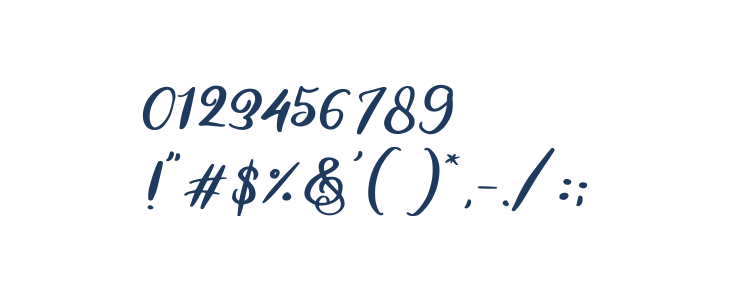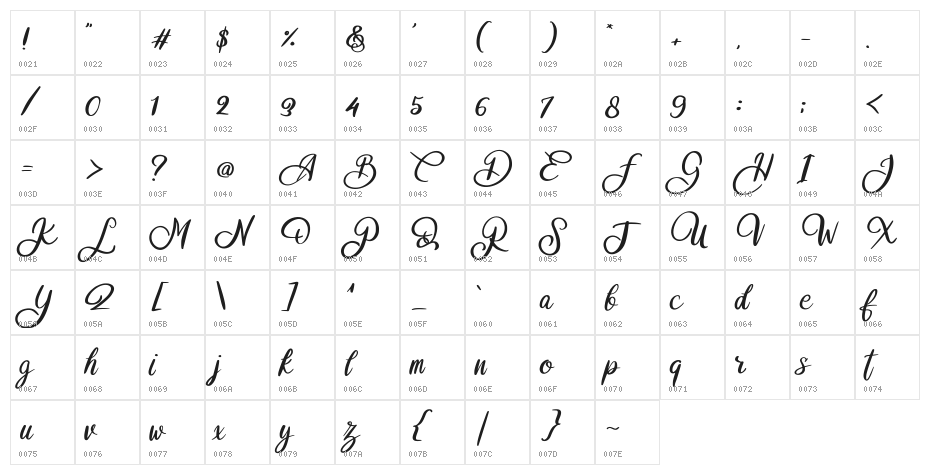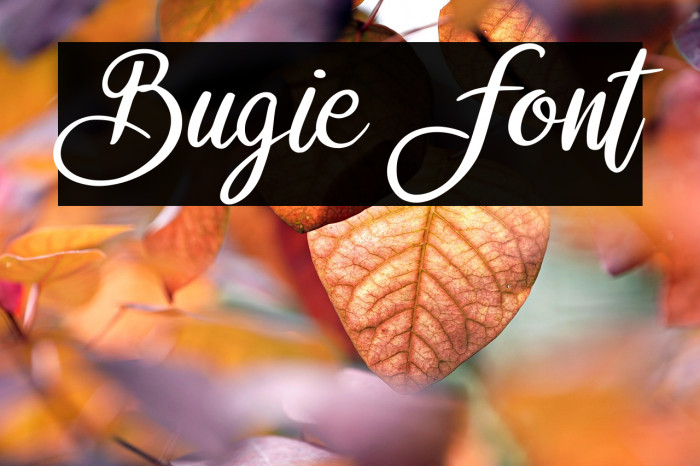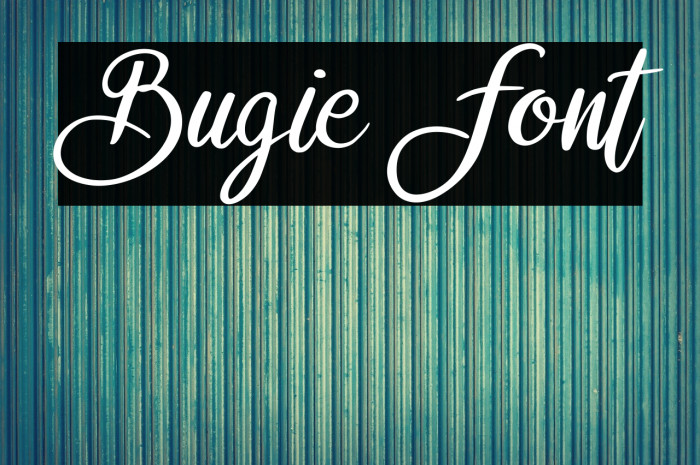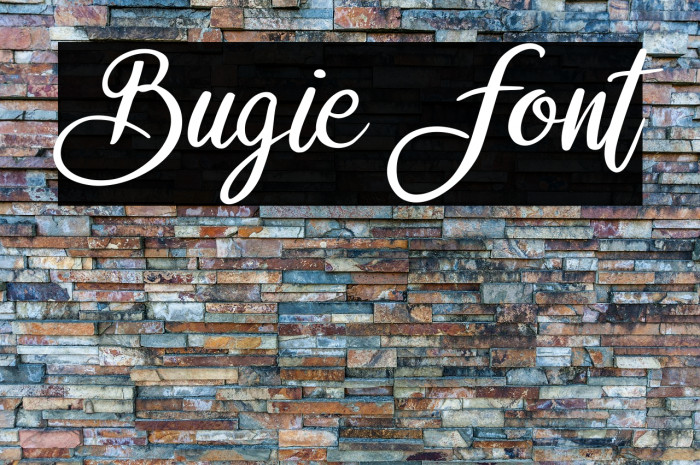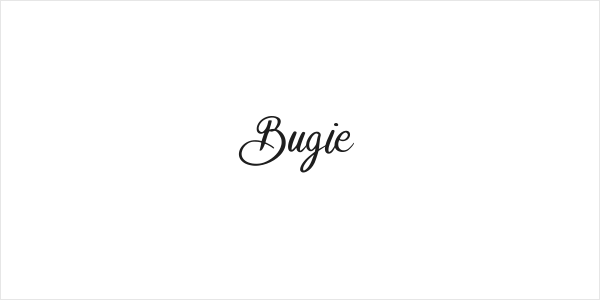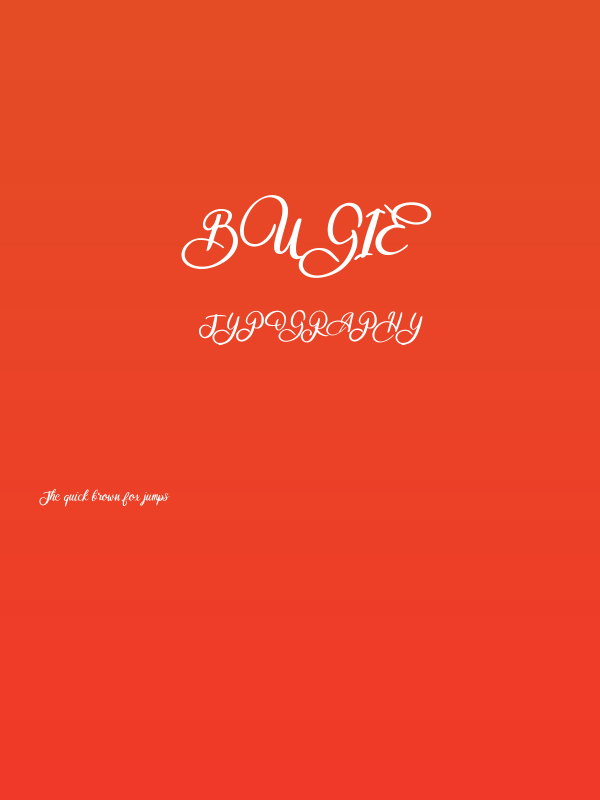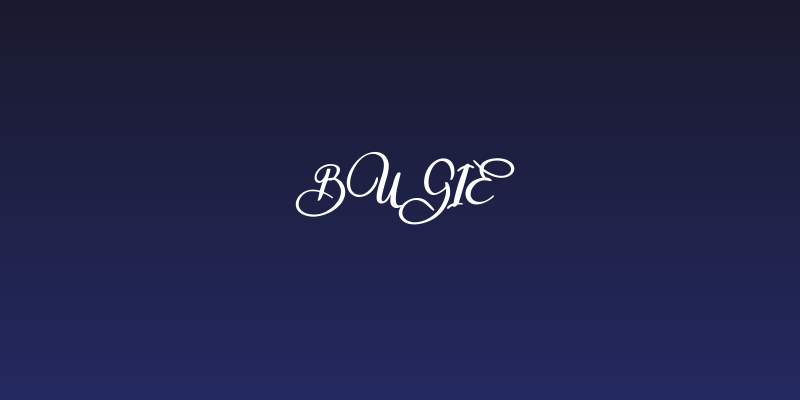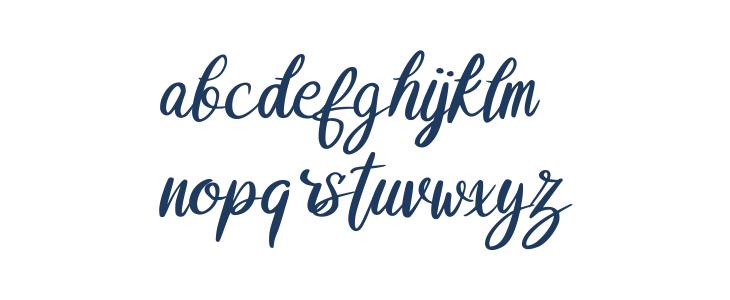
Bugie Font
Bugie Description
This font features an elegant and flowing script style, characterized by its smooth, cursive letters that mimic the fluidity of handwriting. The uppercase letters are ornate, with intricate loops and swirls, while the lowercase letters maintain a consistent, graceful flow. The numerals and special characters complement the alphabet with similar stylistic elements, ensuring a cohesive look. This font's design is both sophisticated and playful, making it suitable for a variety of creative applications.